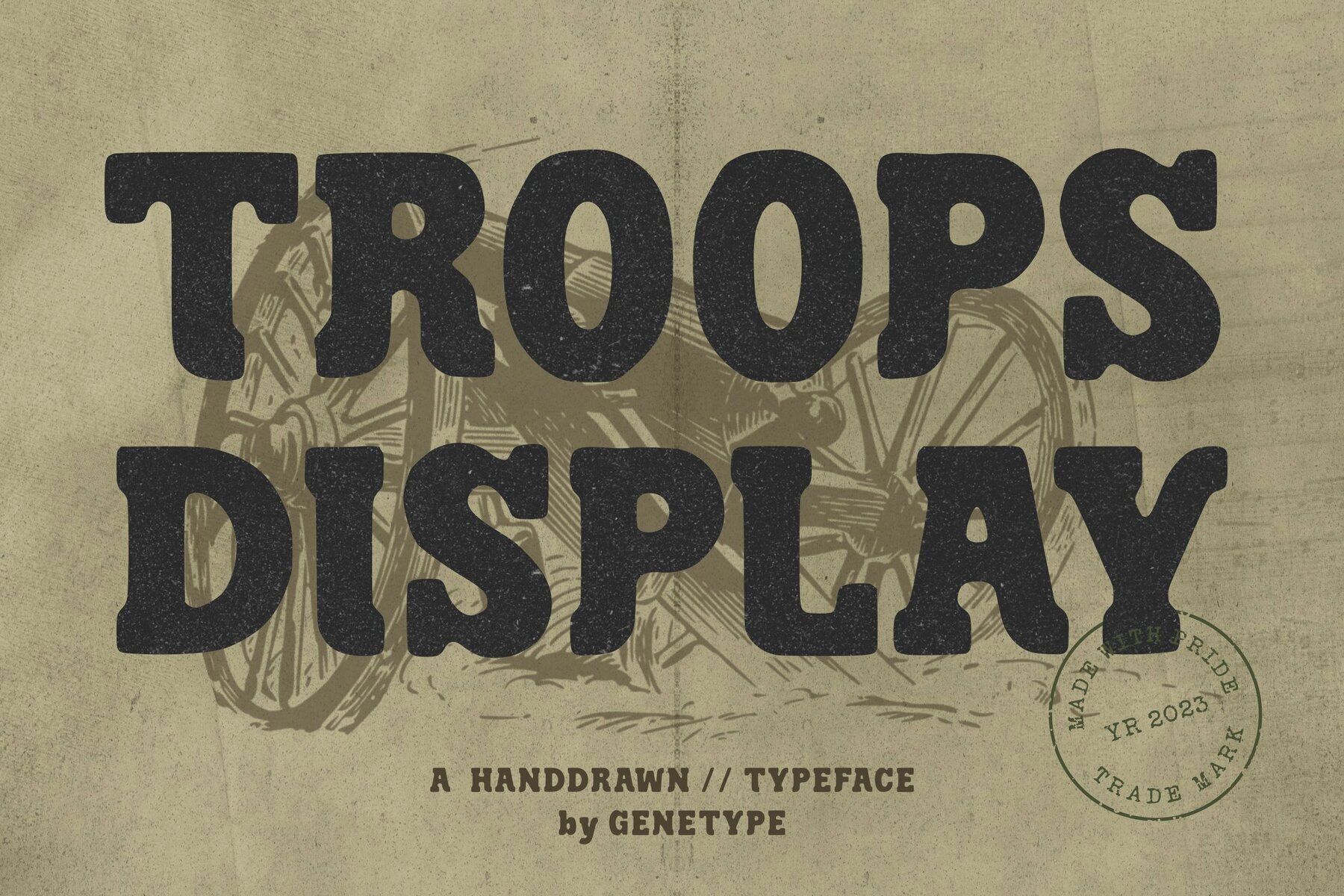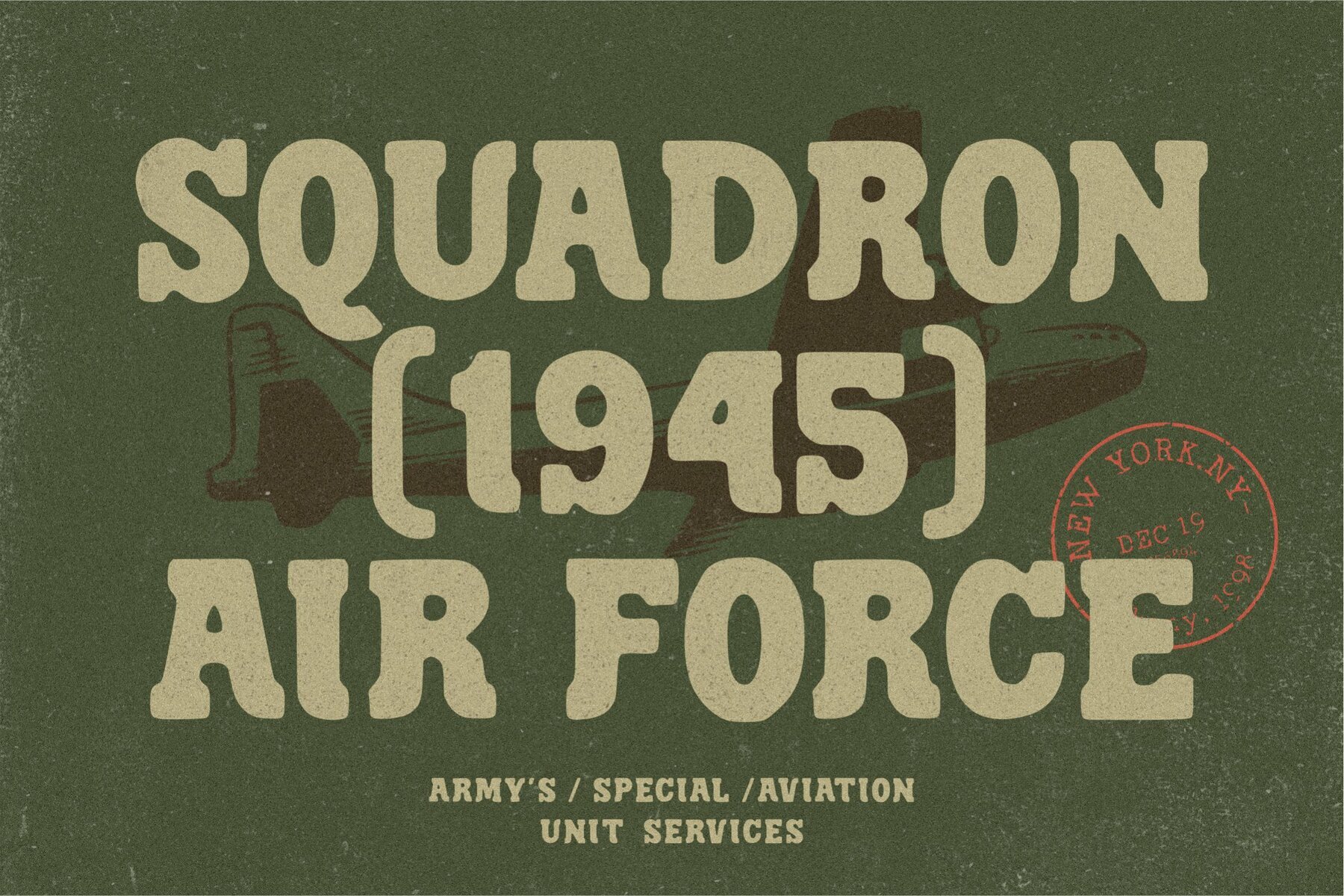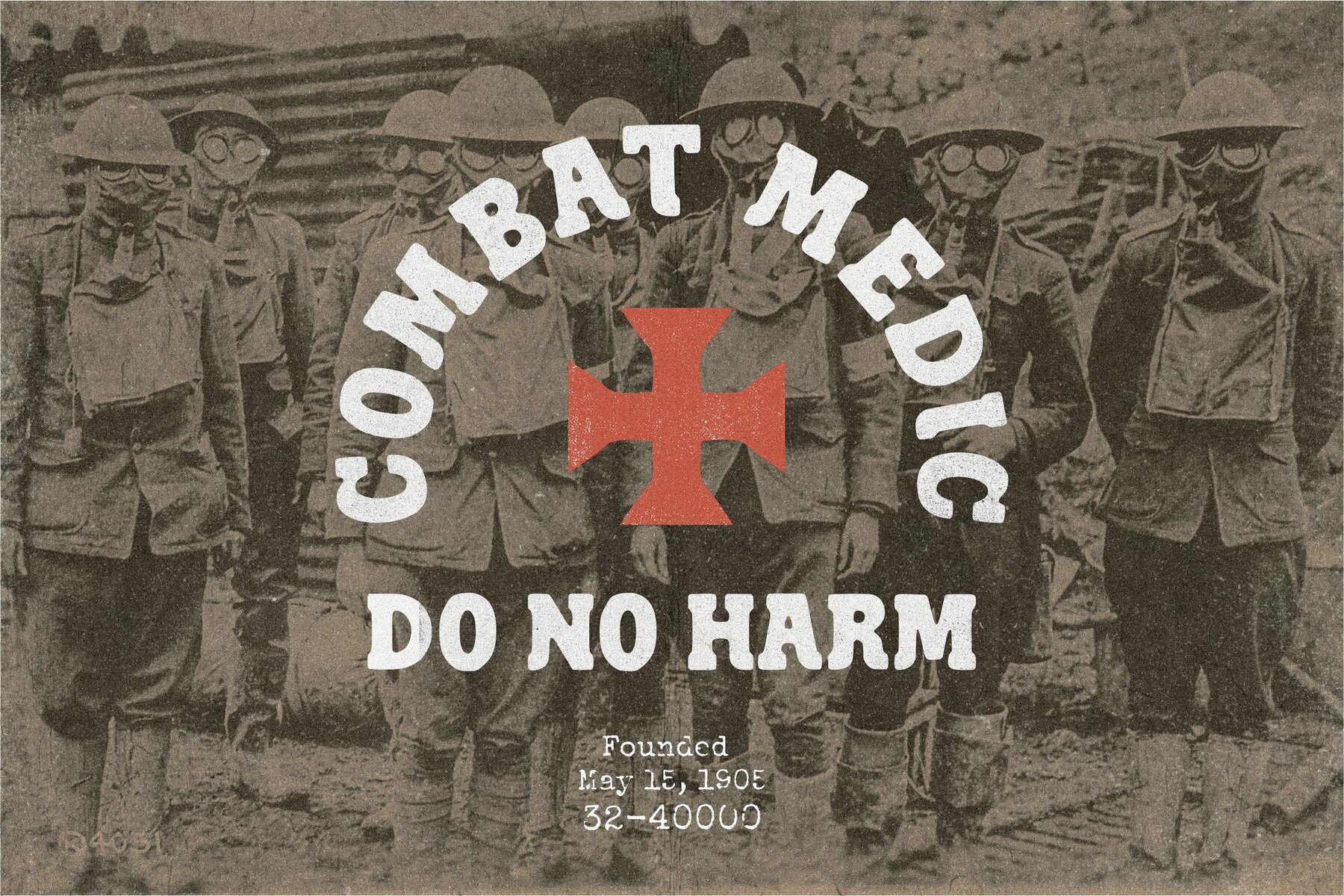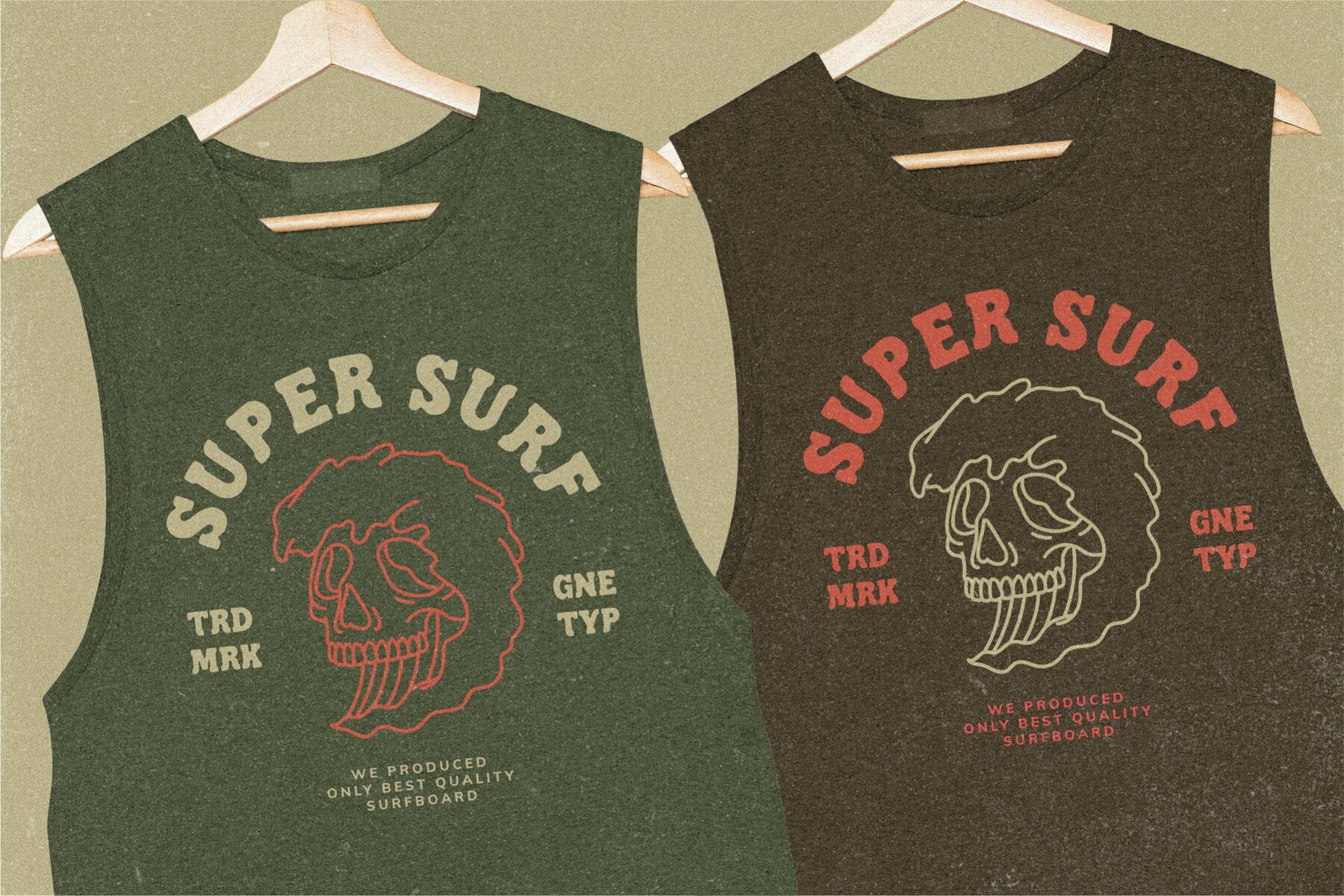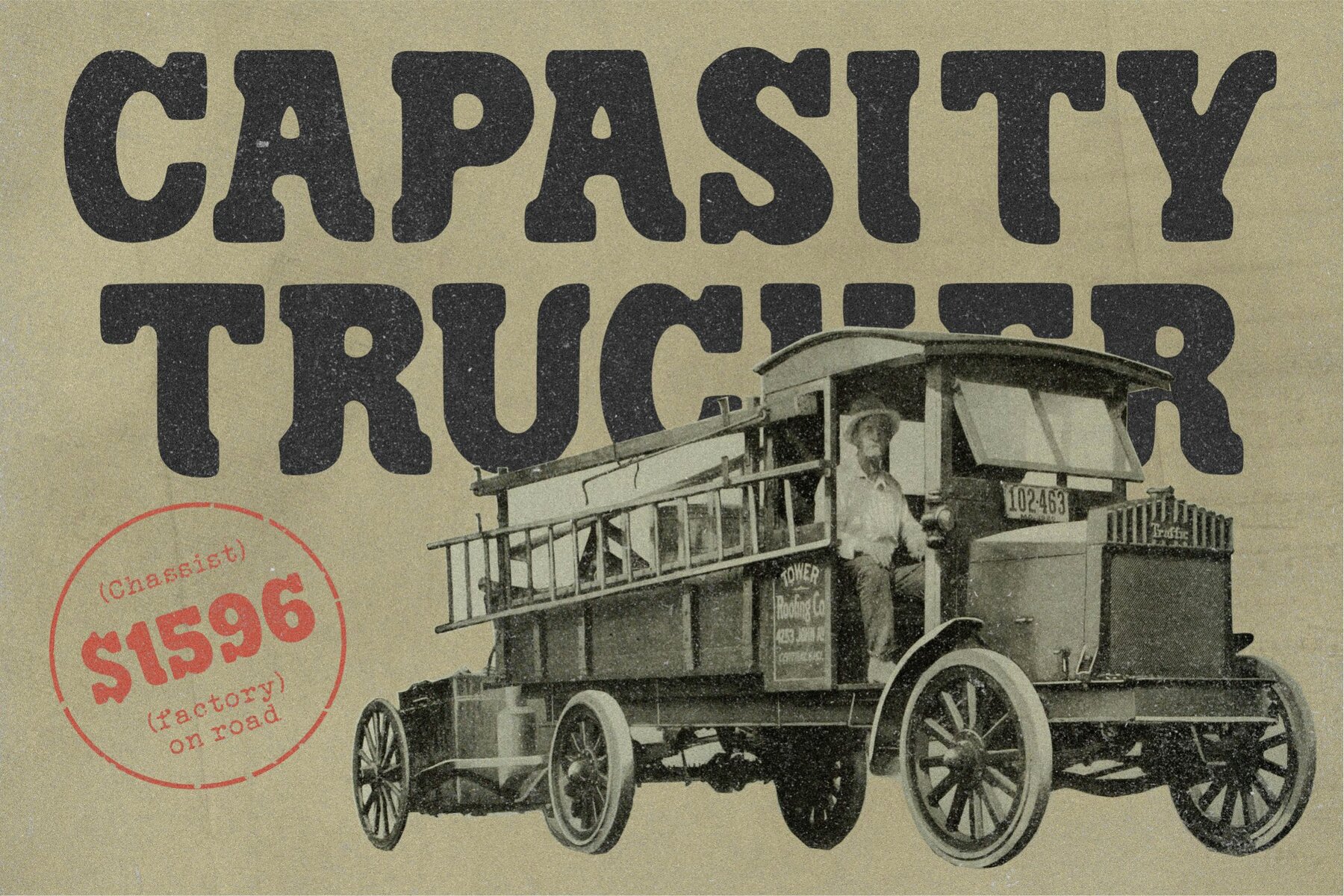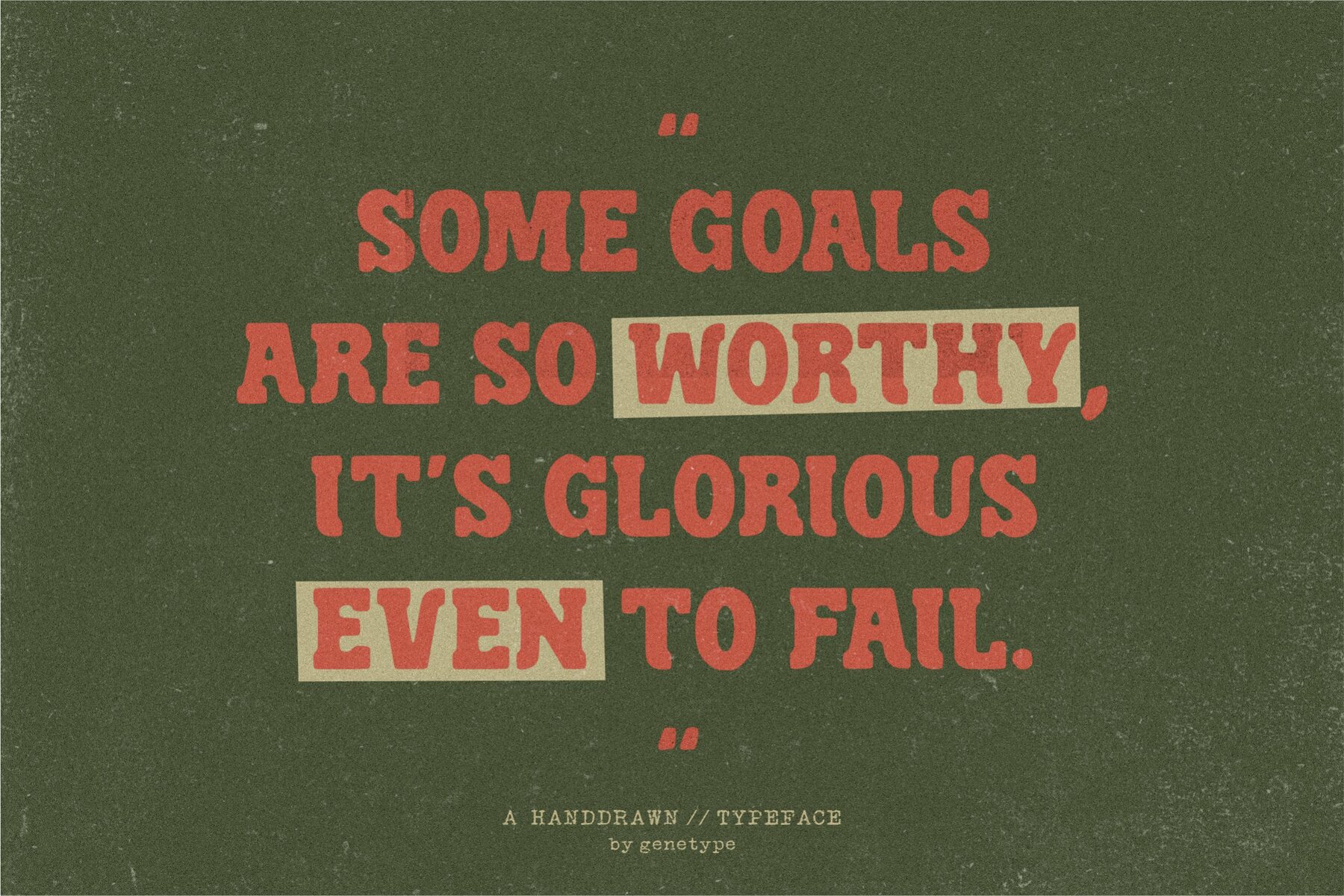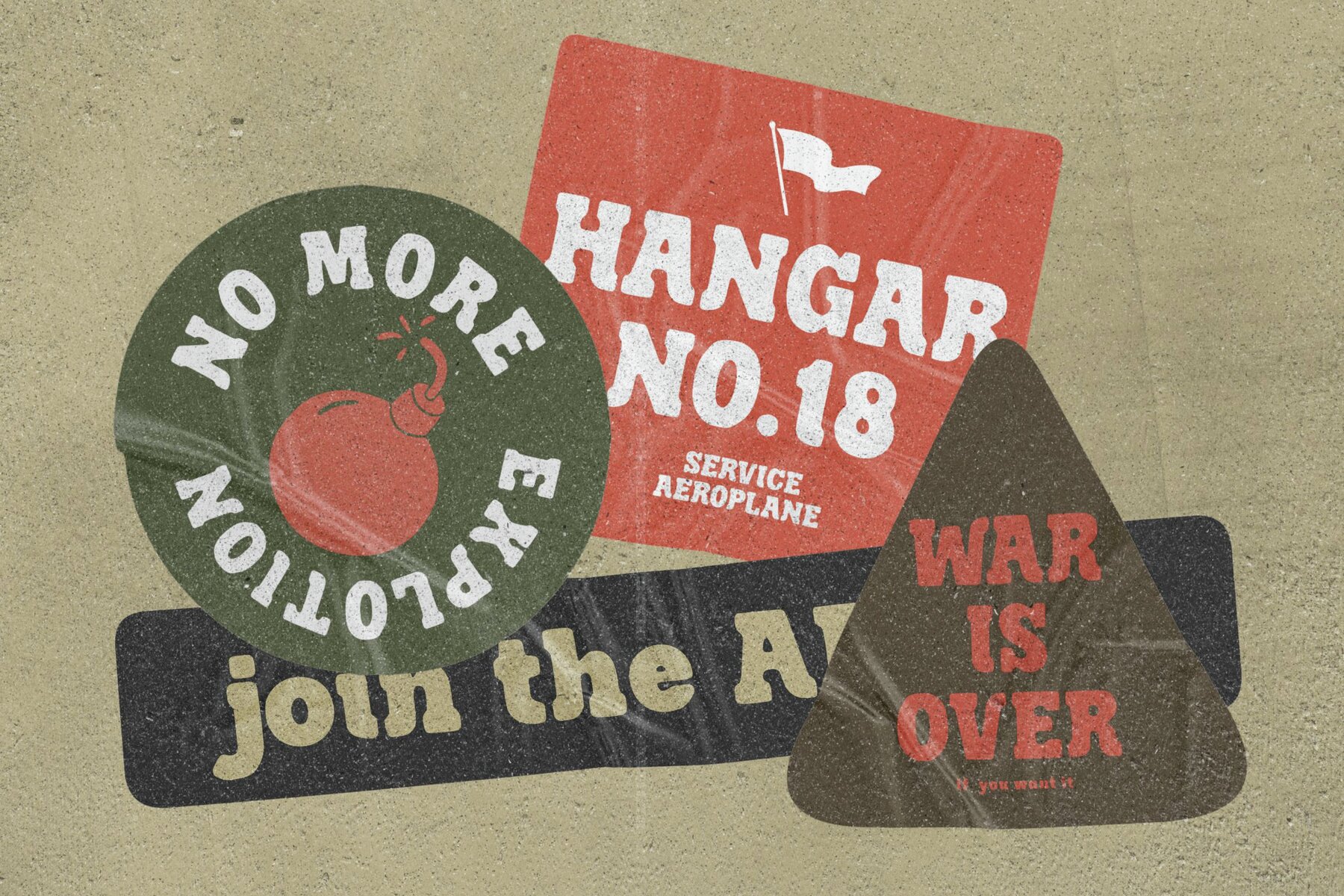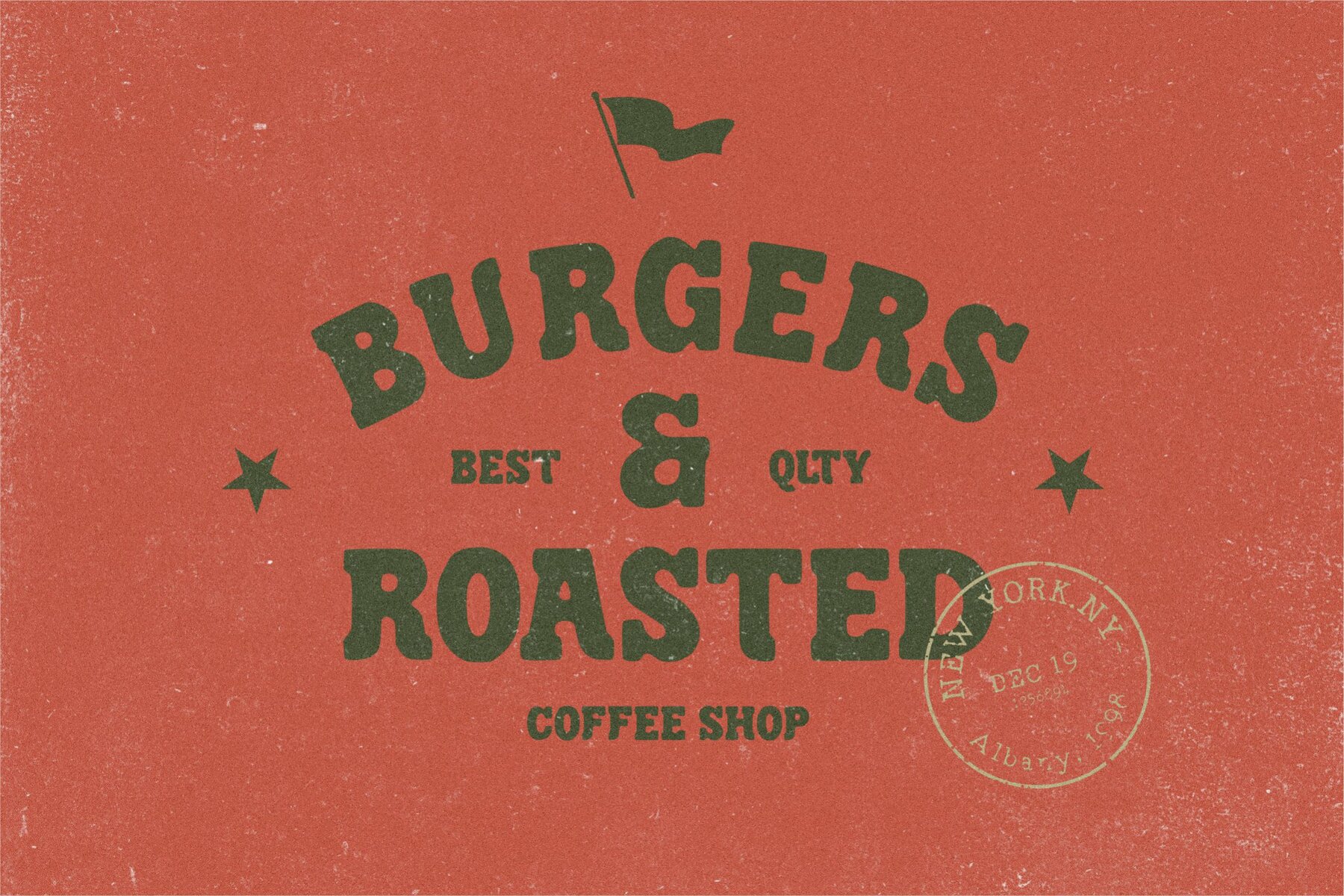
Troops Display Font
Troops Display
Troops Display Typeface: Where Vintage Meets Bold!
Unveil the power of Troops Display—a font that artfully merges vintage aesthetics with a bold, modern twist. Inspired by the rugged charm of the past, this slab serif typeface exudes strength and character in every letterform. From striking headlines to impactful branding, Troops Display commands attention with its rough lines and distinctive serifs.
Whether you're reviving a classic look or adding a touch of timeless flair, Troops Display is your choice for designs that stand the test of time. Embrace the heritage of typography with Troops Display and let your creativity make a lasting mark!